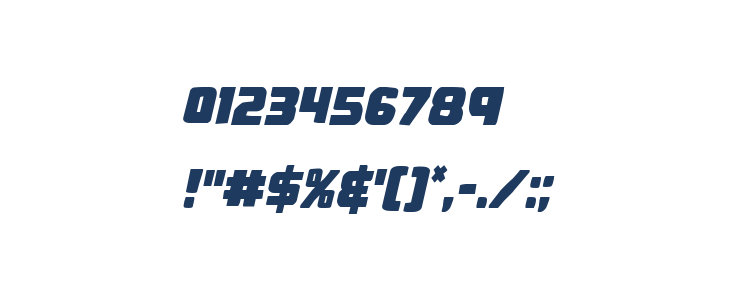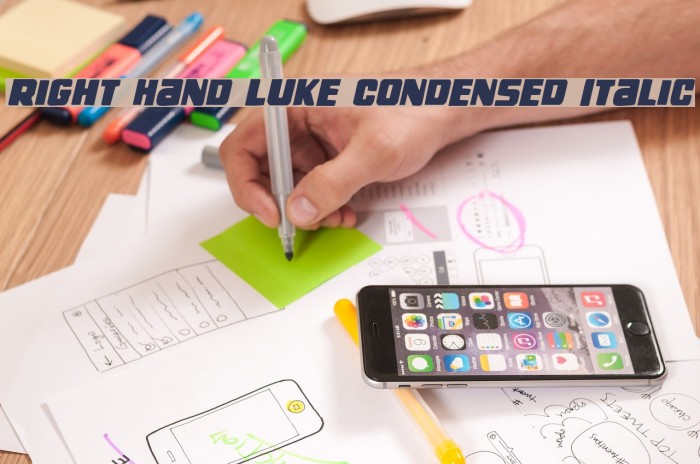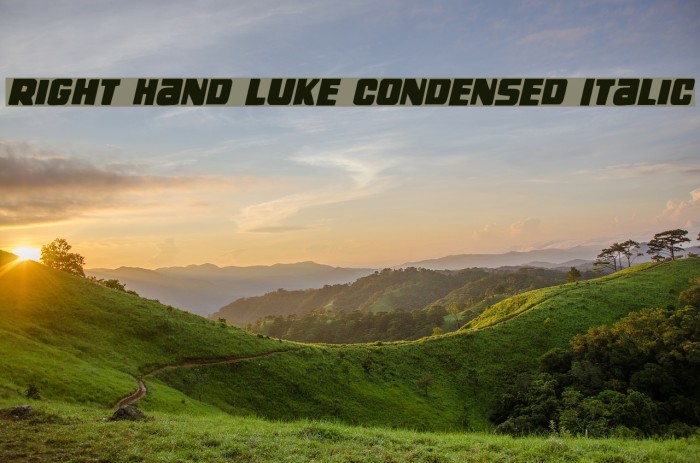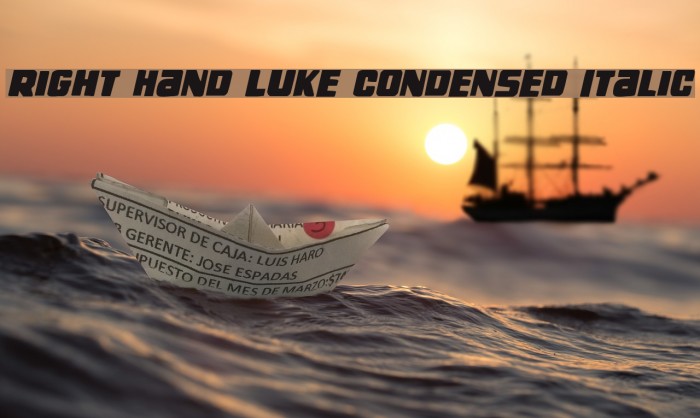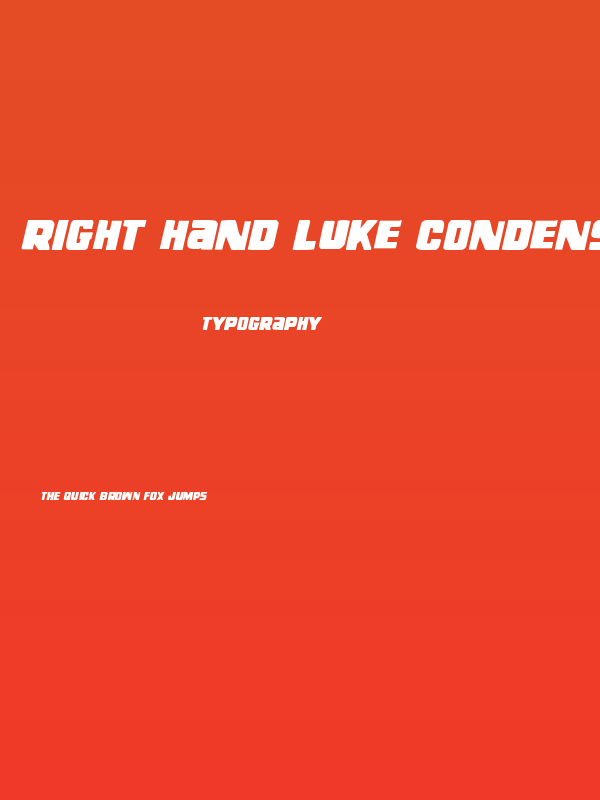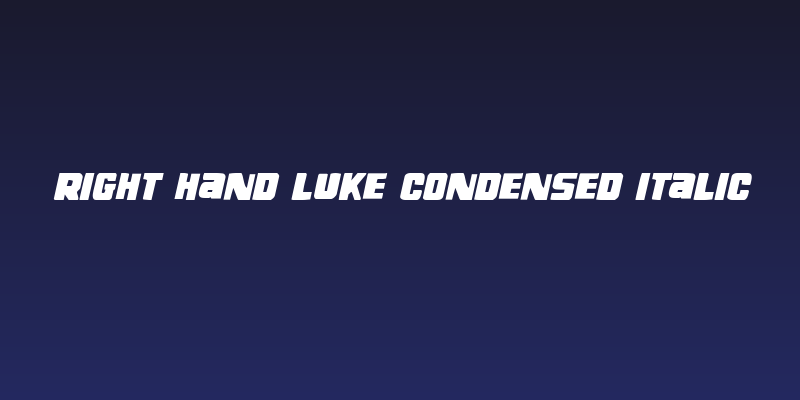
Right Hand Luke Condensed Italic Font
Right Hand Luke Condensed Italic Description
This font features a bold and dynamic style with a condensed and italicized form. The characters exhibit a strong presence, with thick strokes and a slight slant that adds a sense of motion and urgency. The uppercase and lowercase letters are consistent in their boldness, maintaining a uniform appearance across the alphabet. The numerals are equally robust, ensuring readability and impact. Special characters are designed to match the overall aesthetic, providing a cohesive look. This font is ideal for projects that require a strong visual statement.
| Proposed Projects | Ideal for sports branding, dynamic posters, action-themed designs, and bold headlines. |